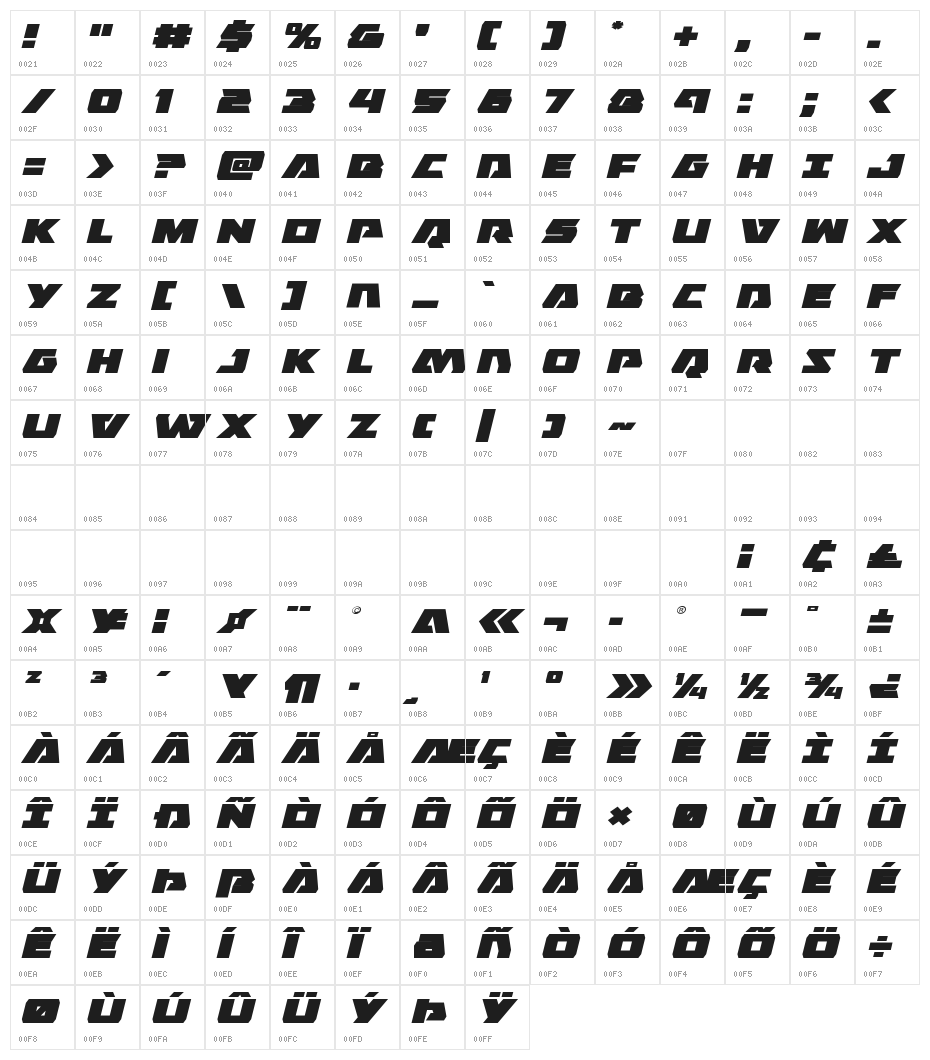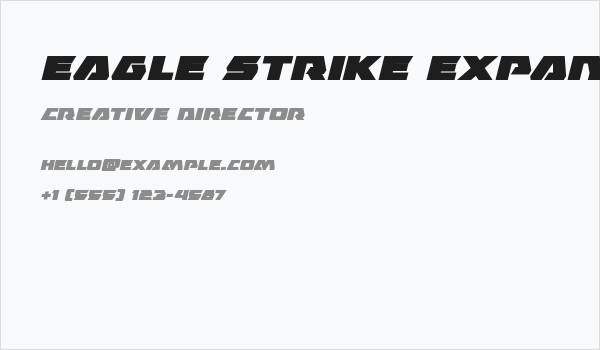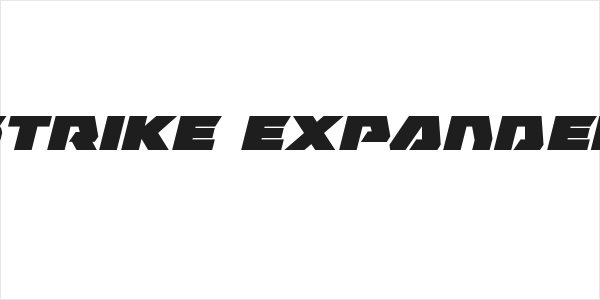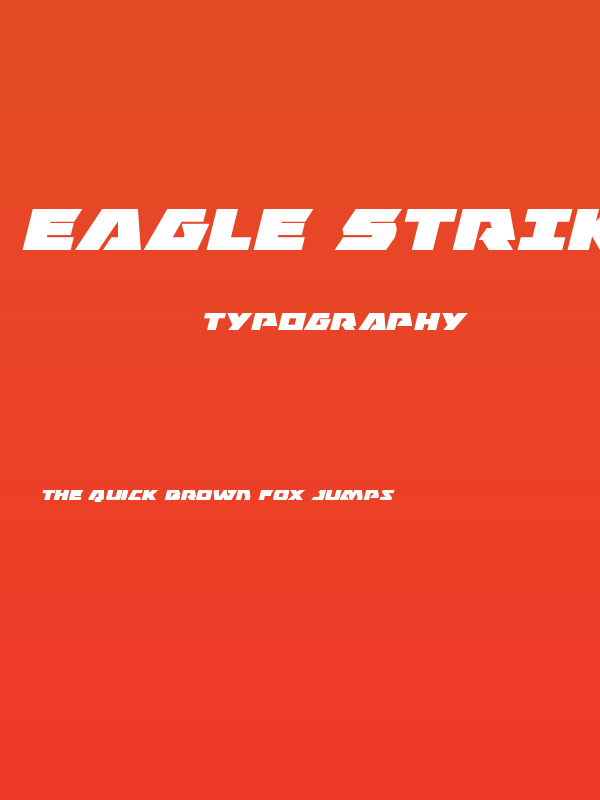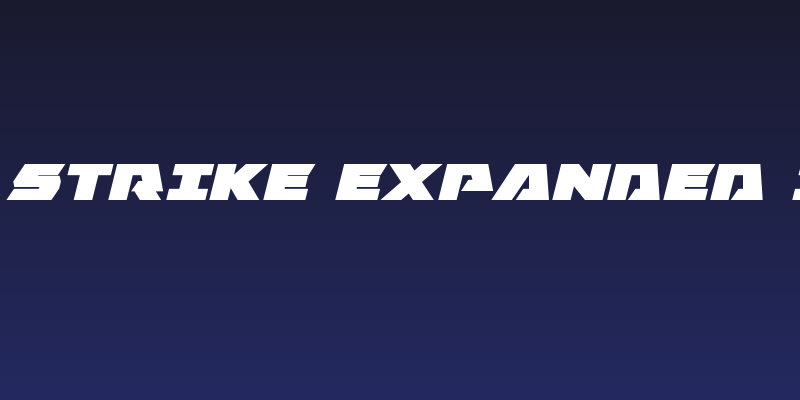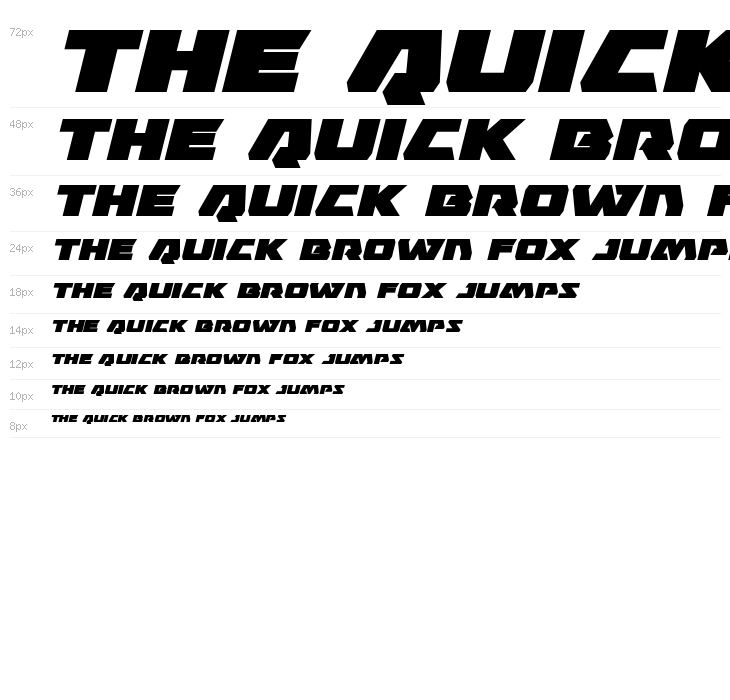
Eagle Strike Expanded Italic Font
Eagle Strike Expanded Italic Description
This font features a bold, angular design with a futuristic and dynamic appearance. The characters are expanded and italicized, giving them a sense of movement and speed. The sharp edges and geometric shapes create a striking visual impact, making it ideal for attention-grabbing headlines or logos. The numbers and special characters maintain the same bold and angular style, ensuring consistency across all elements. The overall design is modern and assertive, suitable for projects that require a strong and impactful visual presence.
| Proposed Projects | Ideal for sports branding, video game titles, action movie posters, and dynamic logo designs. |